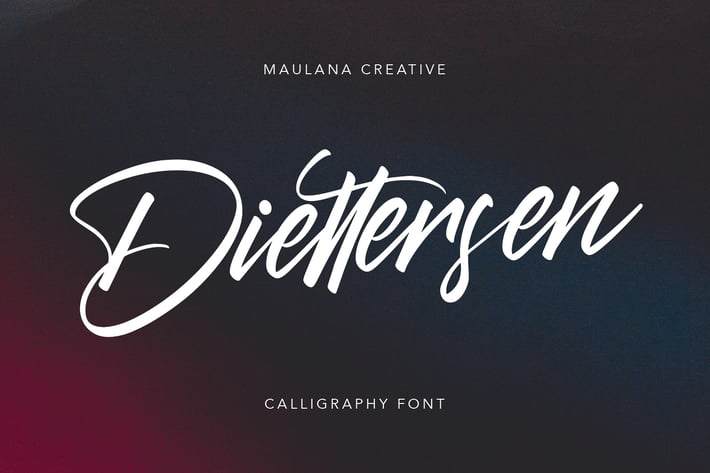
Diettersen Script Calligraphy Font
Give your designs an authentic brush handcrafted feel. Diettersen is perfectly suited to signature, stationery, logo, typography quotes, magazine or book cover, website header, flyer, clothing, branding, packaging design and more.